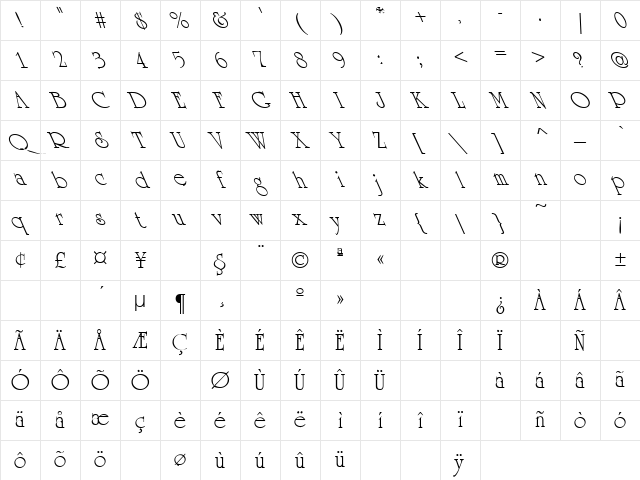
Machine Gun 1 Regular Free Font
Machine Gun 1 Regular
Complete Machine Gun 1 Regular glyph index. Displaying only characters natively supported by Machine Gun 1 Regular font.
Design Context for Machine Gun 1
Machine Gun 1 is a composed and adaptable typeface that performs quietly and consistently across a wide range of design contexts.